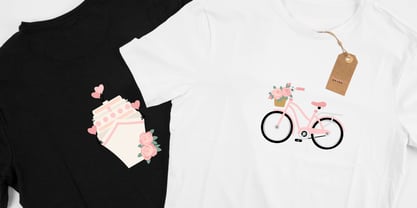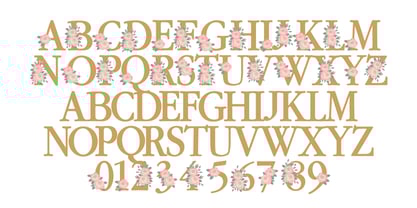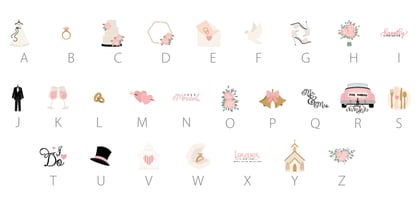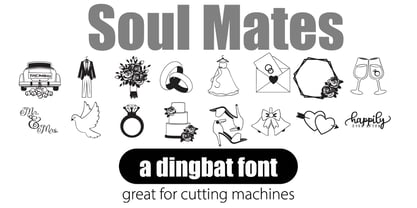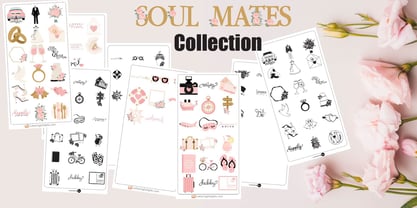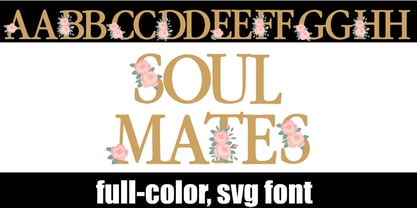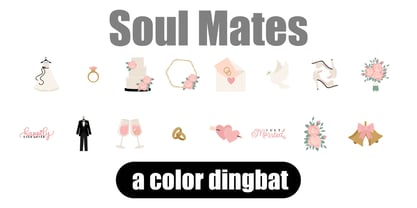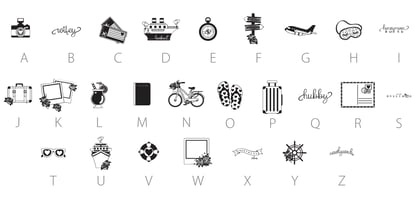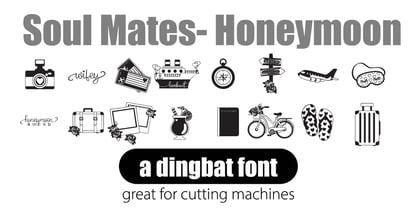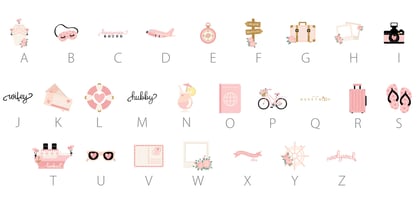
Soul Mates
by Illustration Ink
The Soul Mates Font Family was designed by Illustration Ink and published by Illustration Ink. Soul Mates contains 5 styles and family package options. More about this family
Soul Mates! This font bundle features sweet wedding, bride, and honeymoon imagery. This bundle has 1 full-color font, with an alt case of additional colors of each letter that you can access through your system or Silhouette's glyph map, 2 full-color dingbats, and 2 regular dingbats.
Full-color SVG fonts are the perfect way to add a touch of personality to your designs. With a full range of colors and styles to choose from, you can create anything from simple text logos to complex illustrations. Plus, SVG fonts are vector-based, so they can be scaled to any size without losing quality.
Here are some of the benefits of using full-color SVG fonts:
• They are versatile and can be used for a variety of projects, from logos and branding to web design and print.
• They are scalable, so you can use them for any size project.
• They are high quality and will not lose their resolution when scaled.